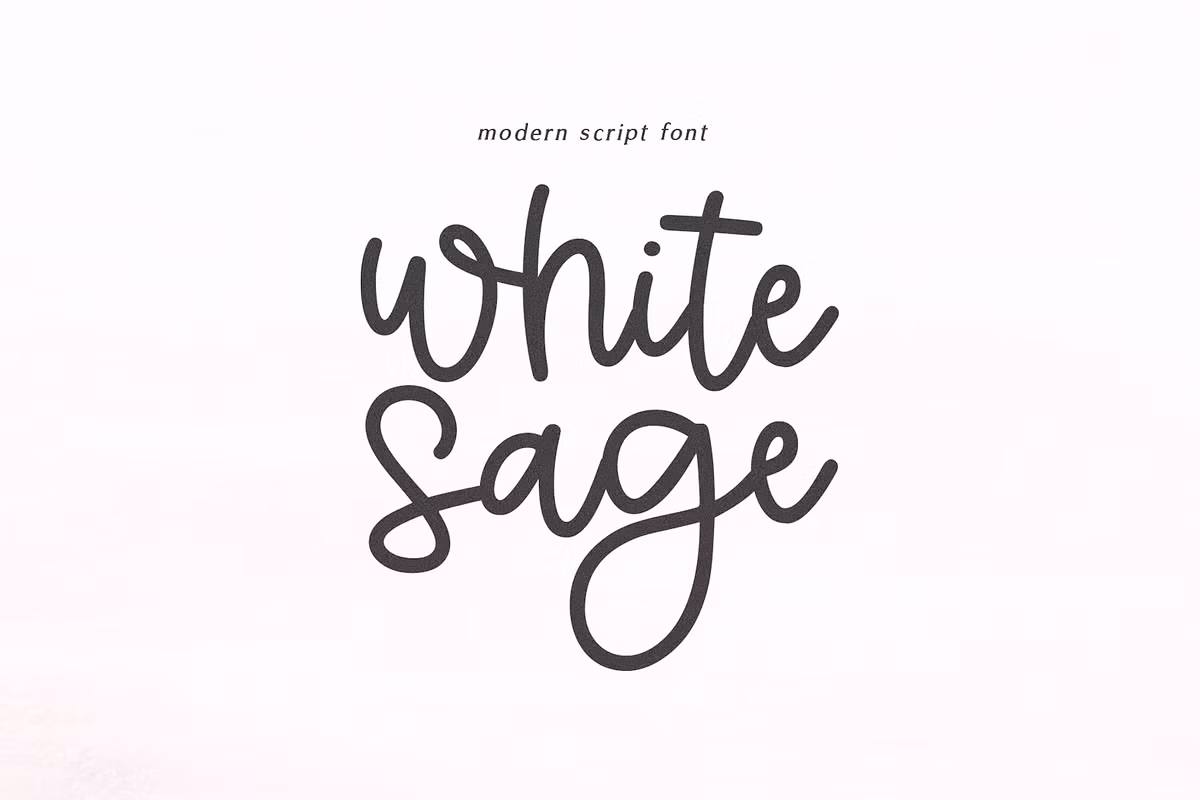
Elegant, flowing, and full of charm, White Sage | Modern Script Font Free Download brings a contemporary flair to classic script typography. Perfect for wedding invitations, branding, logos, and social media graphics, this font adds a touch of sophistication to any project. Its smooth curves and stylish ligatures make it ideal for feminine designs and high-end aesthetics.
Crafted to maintain legibility while exuding personality, White Sage combines beauty with functionality. Whether you're working on a romantic project or upscale brand identity, this font enhances your visuals with a modern handwritten touch.